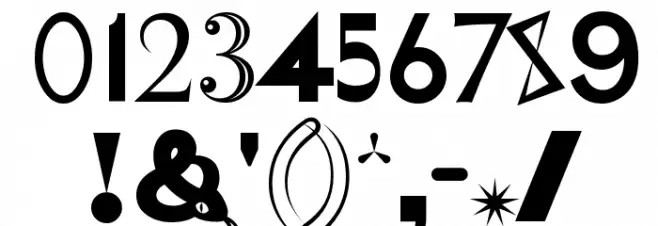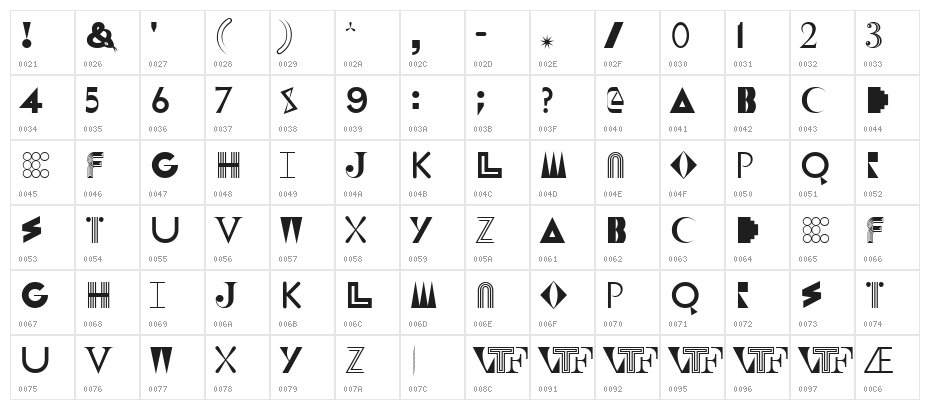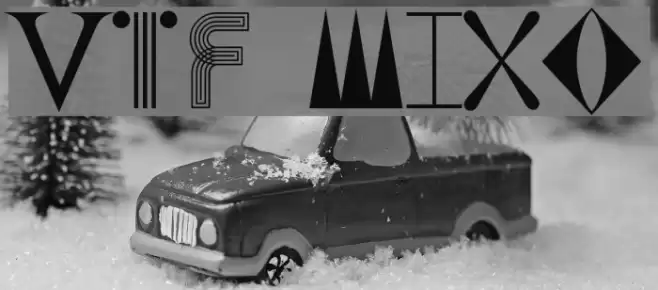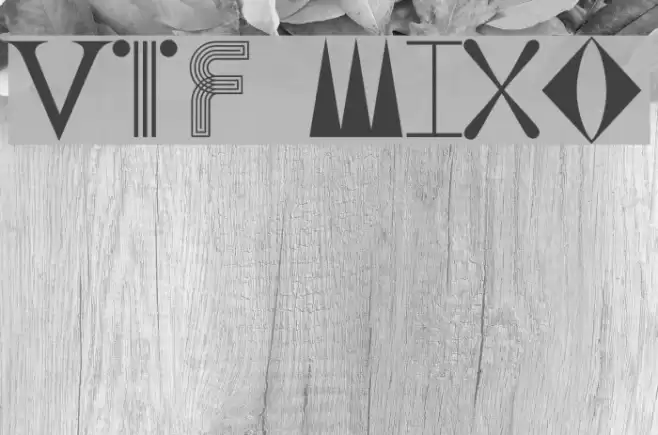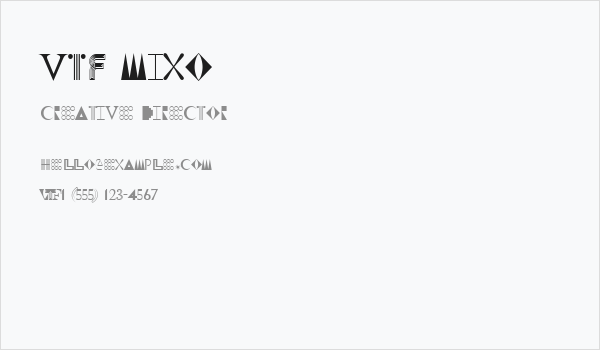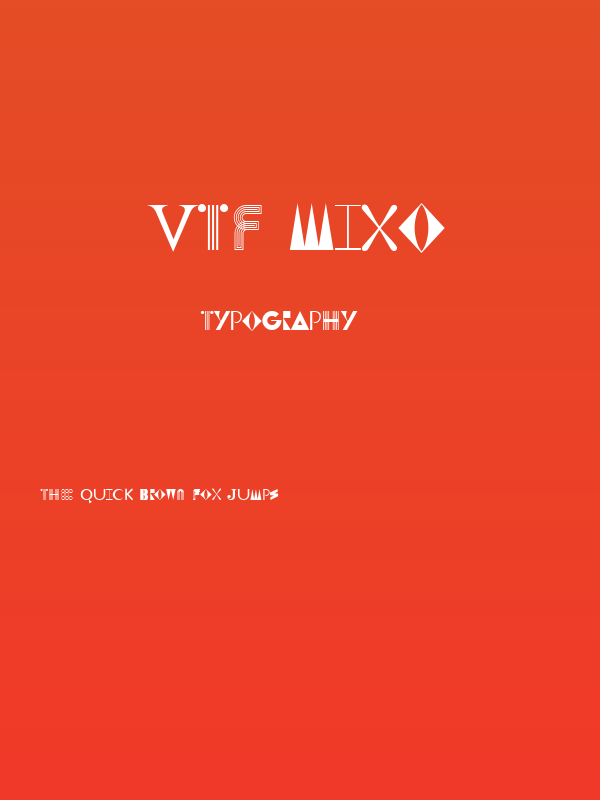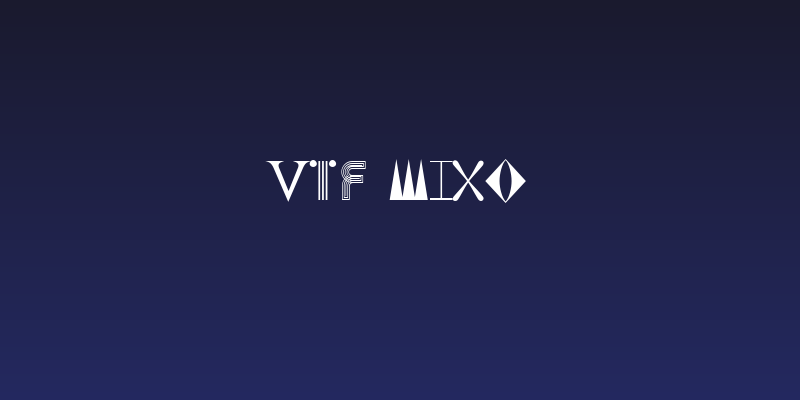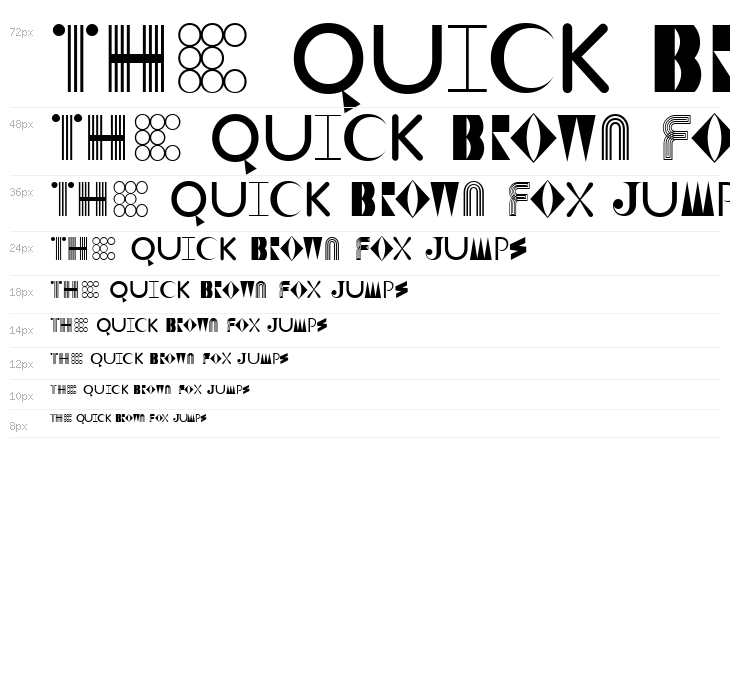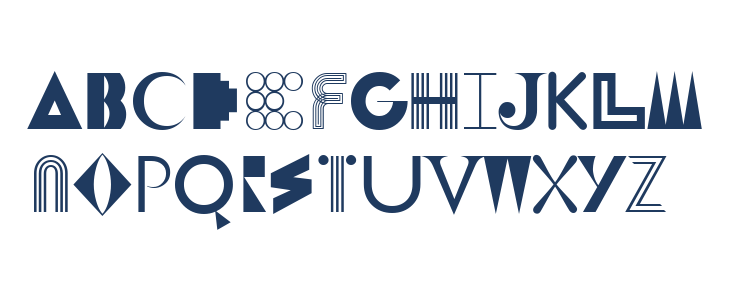
VTF Mixo Font
VTF Mixo Description
This font is a bold and eclectic display typeface that combines geometric shapes and unique patterns to create a striking visual impact. Each character is distinct, featuring elements like solid blocks, stripes, and circular motifs, which give it a playful yet sophisticated appearance. The uppercase letters are particularly eye-catching, with some characters resembling abstract art pieces. The numbers and special characters maintain this artistic flair, making the font suitable for creative and modern designs. Its diverse styles within the same typeface offer versatility, allowing for dynamic and engaging text compositions.
| Proposed Projects | Ideal for branding, poster design, album covers, and any project requiring a modern, artistic touch. |